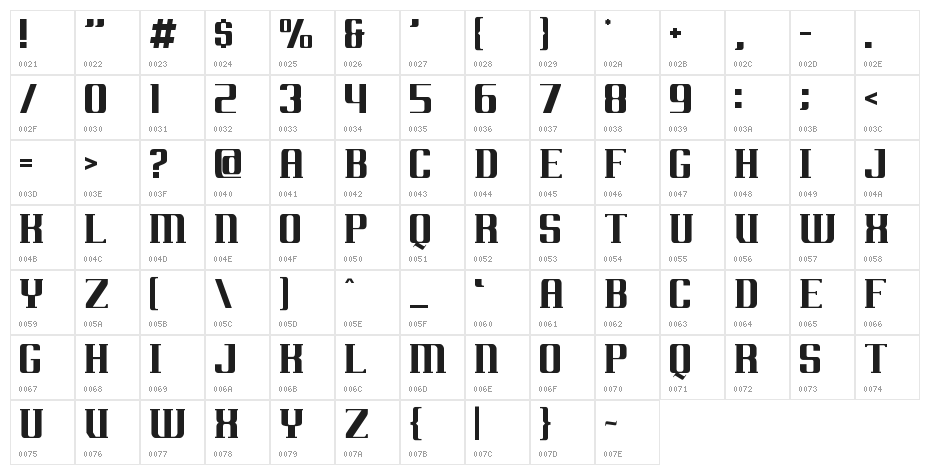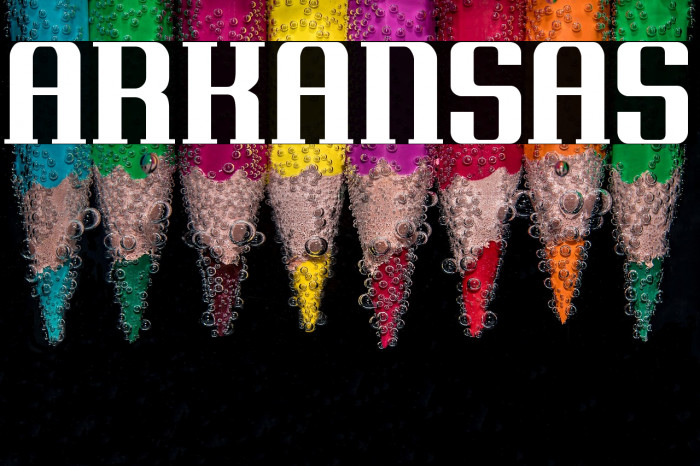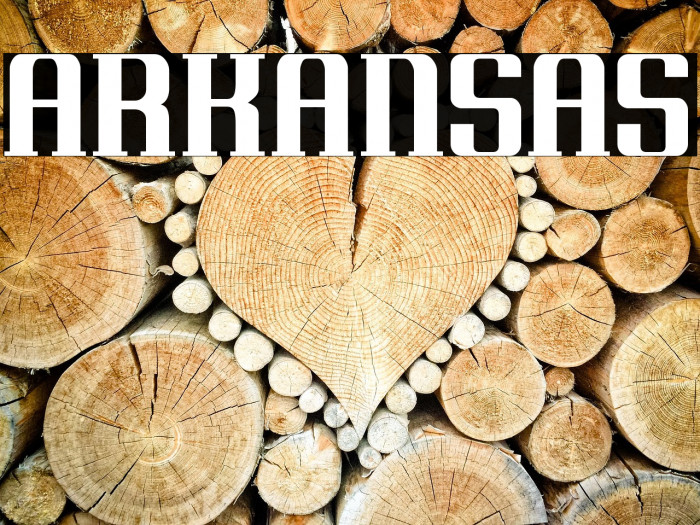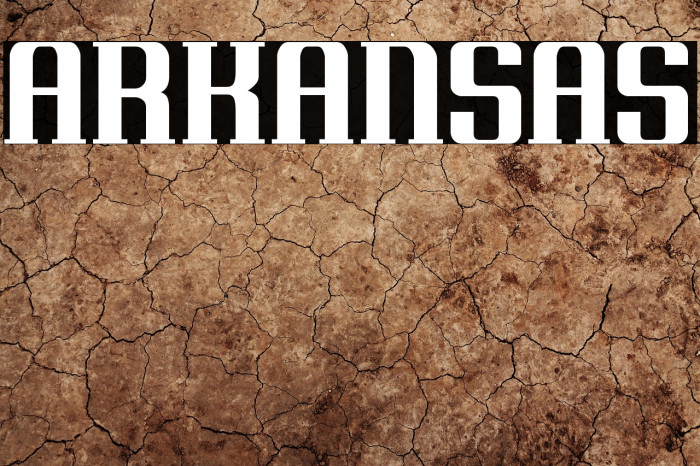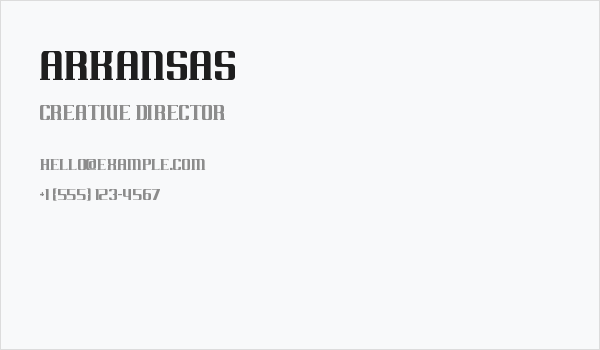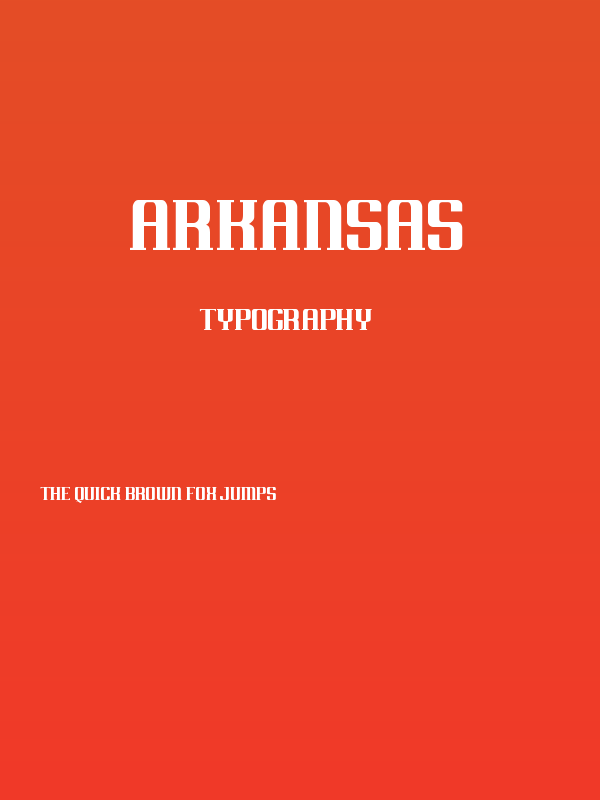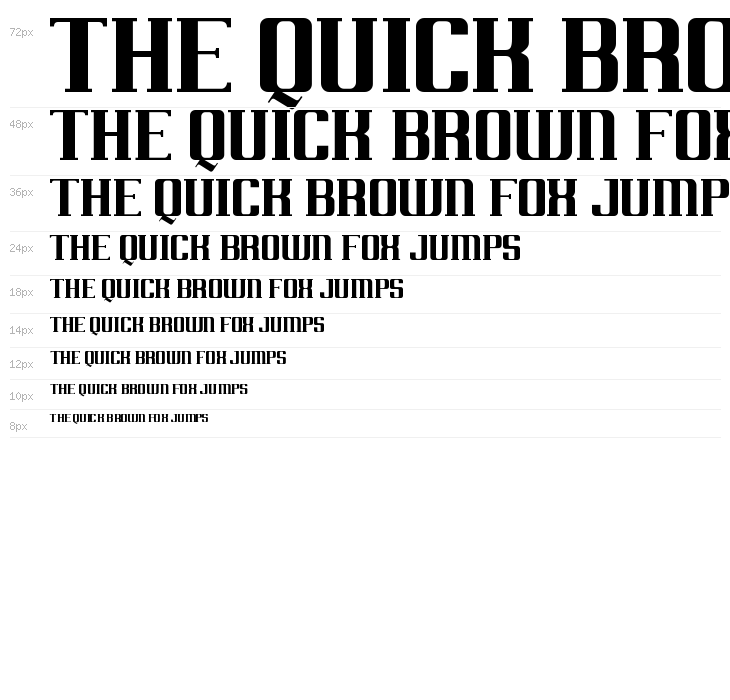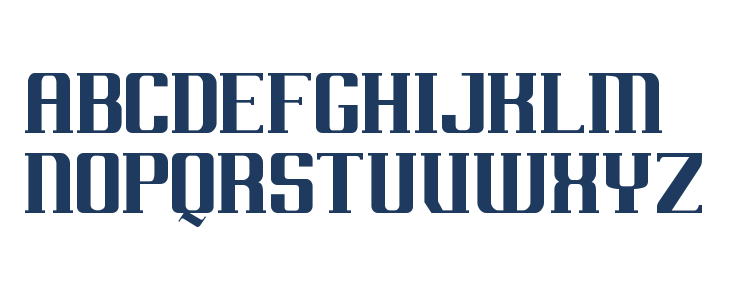
Arkansas Font
Arkansas Description
This font features a bold and striking design with a modern twist on traditional serif elements. The characters are tall and narrow, with sharp, angular serifs that give it a distinctive and authoritative appearance. The uppercase letters are particularly prominent, with a uniform height that creates a strong visual impact. The numerals and special characters maintain the same boldness and angularity, ensuring consistency across all elements. This font's unique style makes it suitable for projects that require a strong and memorable visual identity.
| Proposed Projects | Ideal for branding, headlines, posters, and any design that requires a strong, impactful typeface. |